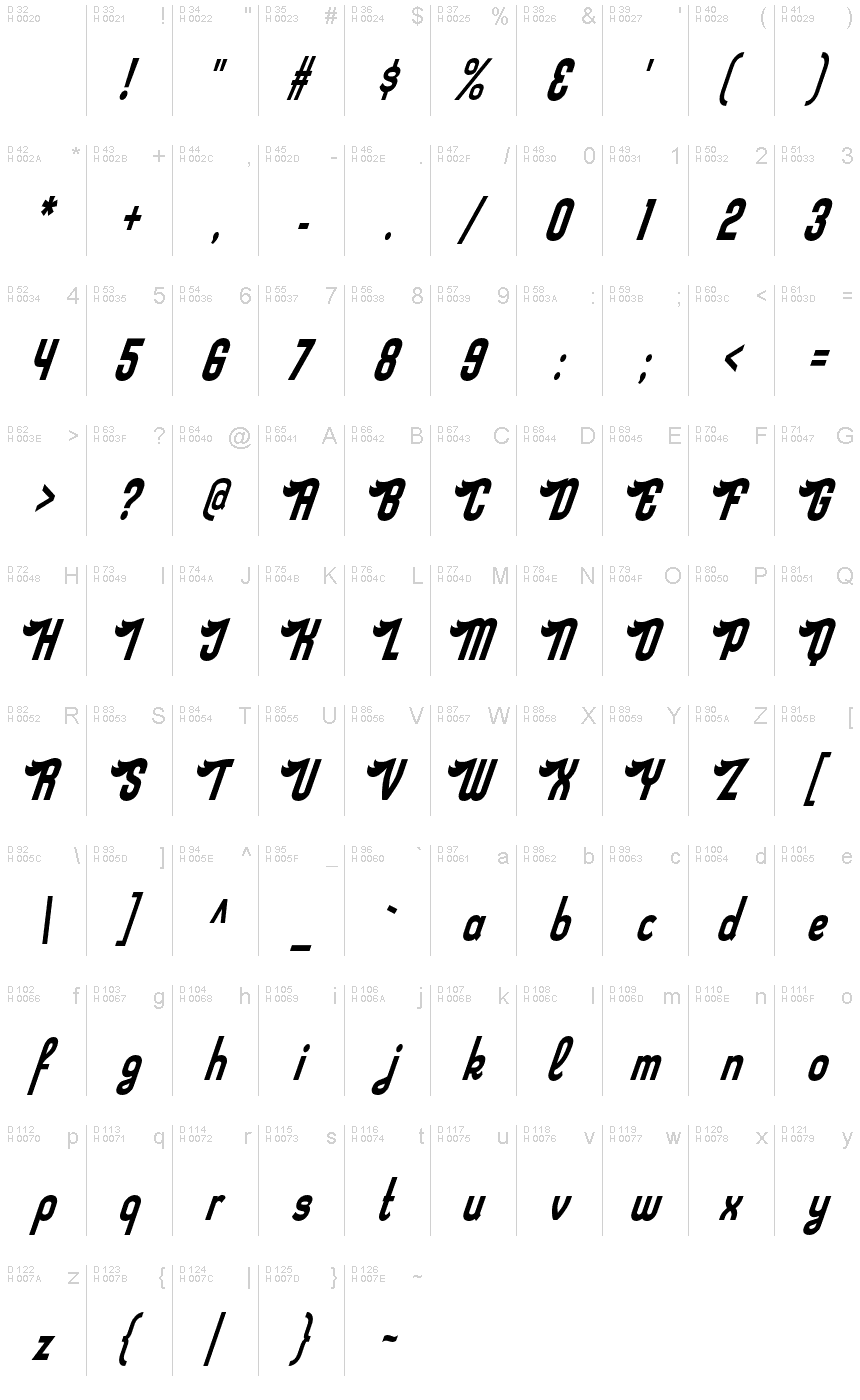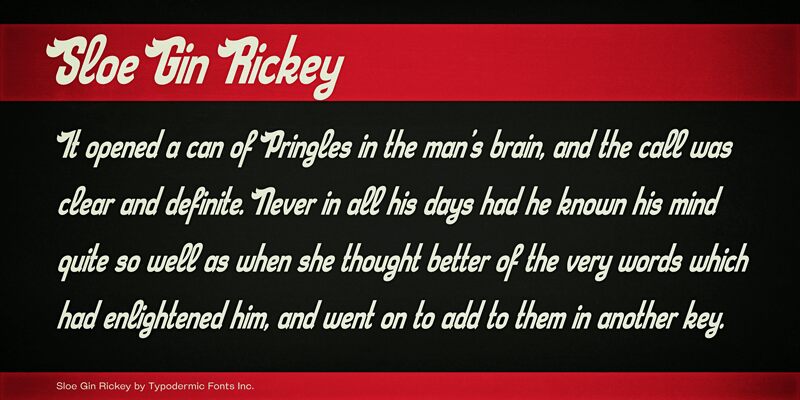
Sloe Gin Rickey, designed by Ray Larabie, is a testament to the creative fusion of aliform aesthetics and industrial functionality. This handwritten font takes its cues from the dynamic mid-century automotive logos, reminiscent of sleek wing shapes that symbolize velocity and grace. Its extra-condensed width adds a sharpness to the typeface, making it distinctively suitable for projects that require a touch of nostalgia blended with modern minimalism.
The style of Sloe Gin Rickey evokes an era where design was both inventive and symbolic, making it an excellent choice for branding, poster designs, or any creative endeavor seeking to channel the spirit of speed and innovation found in classic automotive badges from Raybestos to Harley Davidson. The font's industrial script character gives it versatility while retaining a handwritten intimacy—an intriguing choice for those looking to marry retro charm with contemporary precision in their typographical work.